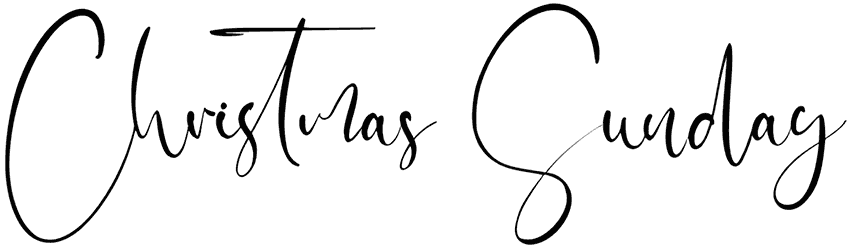
Christmas Sunday Font
Let us introduce a unique handwritten font with a modern and chic vibe to you. With a delicate and curved style, Christmas Sunday can reflect an elegant mood. This signature font, with almost full coverage of characters, would make it the perfect choice for your creative projects, such as postcards, invitations, logotypes, and more.